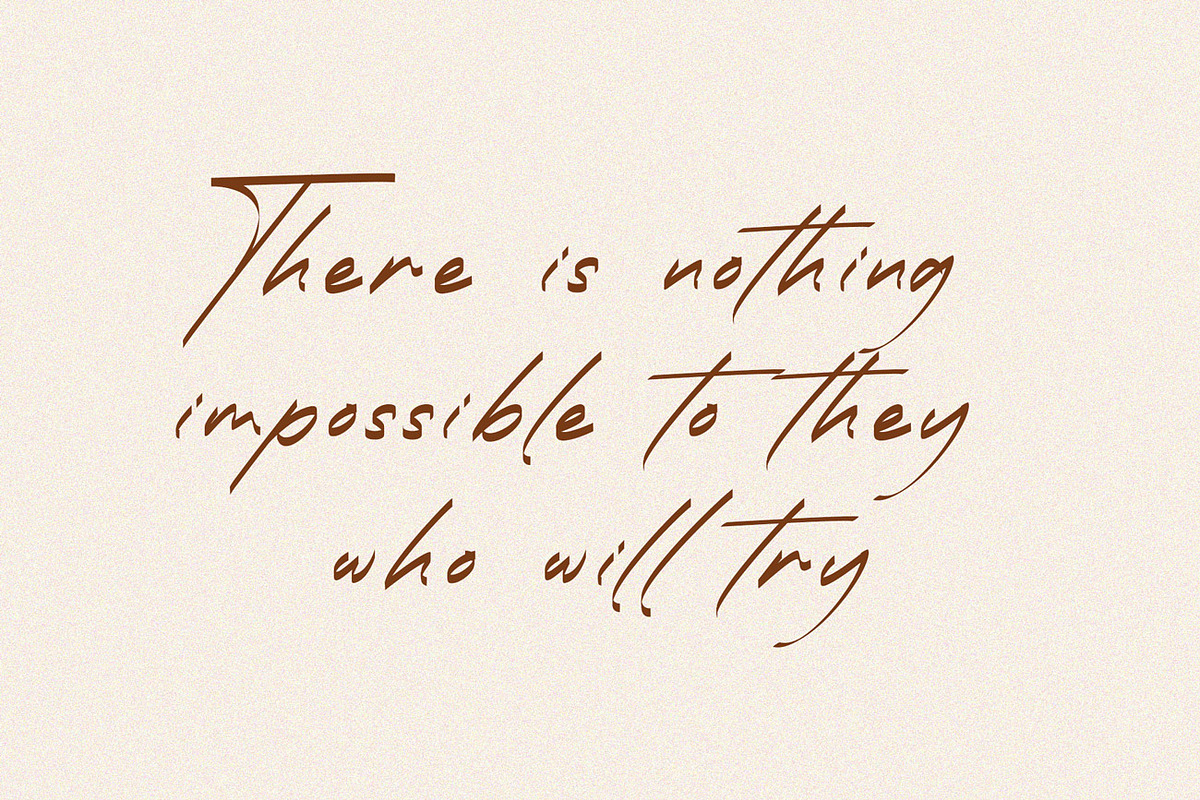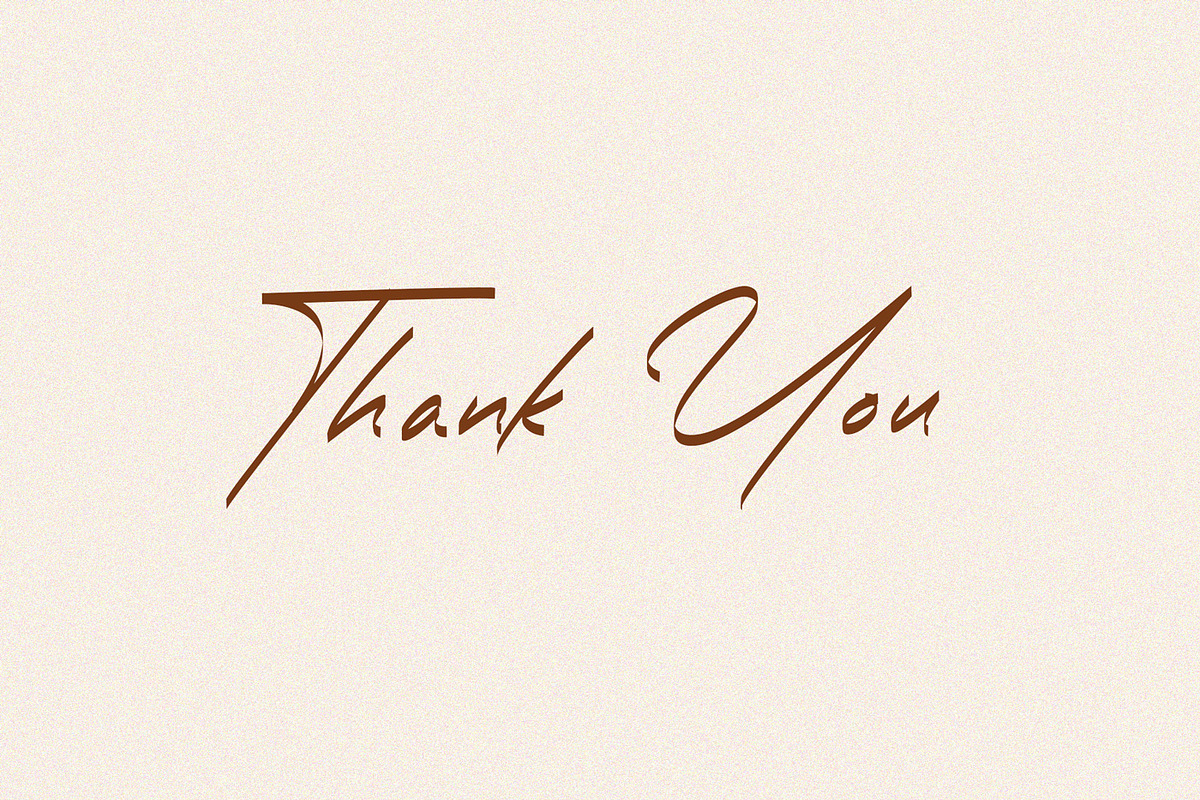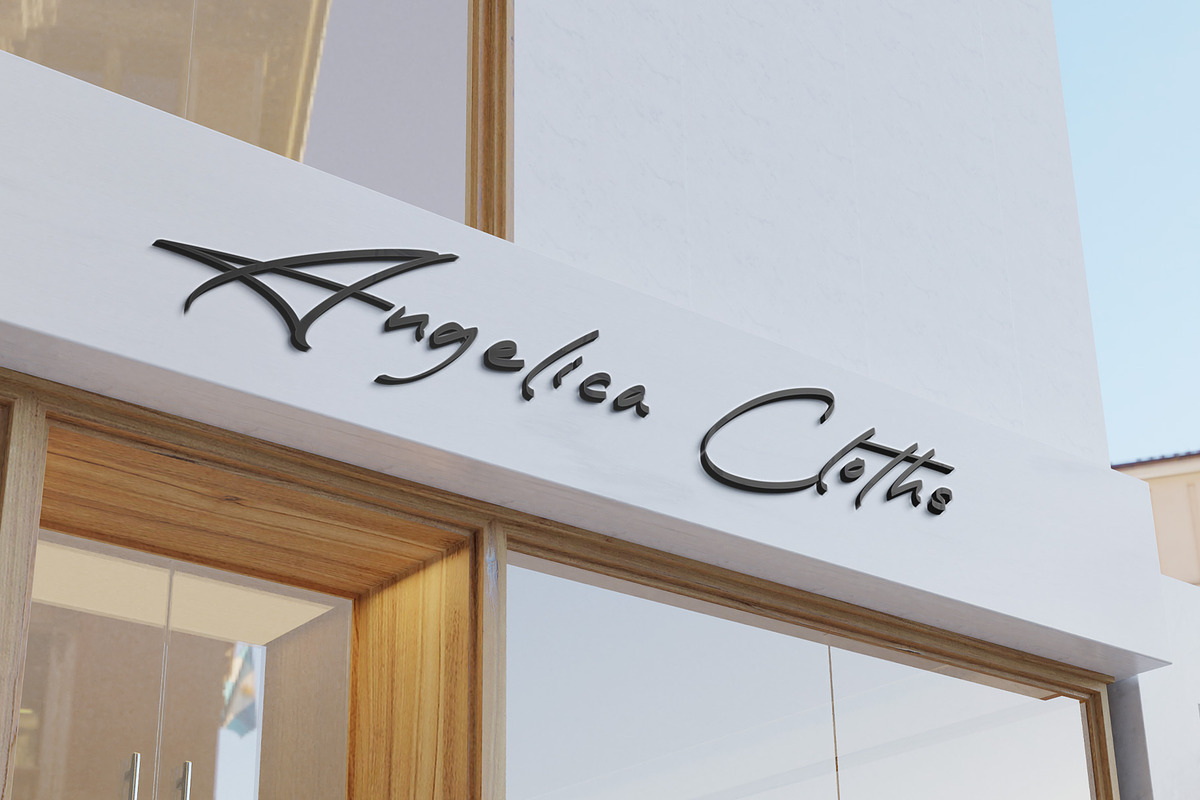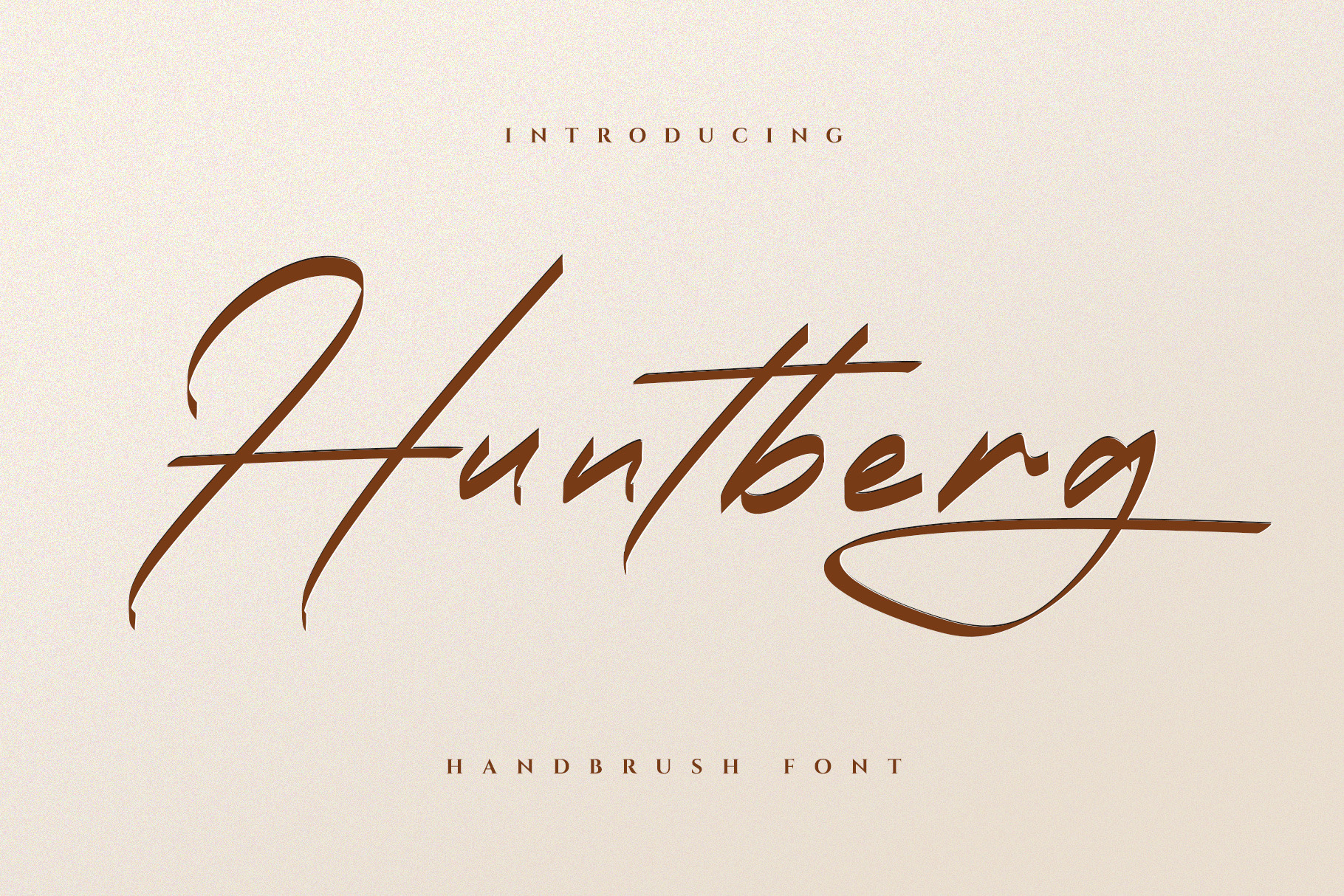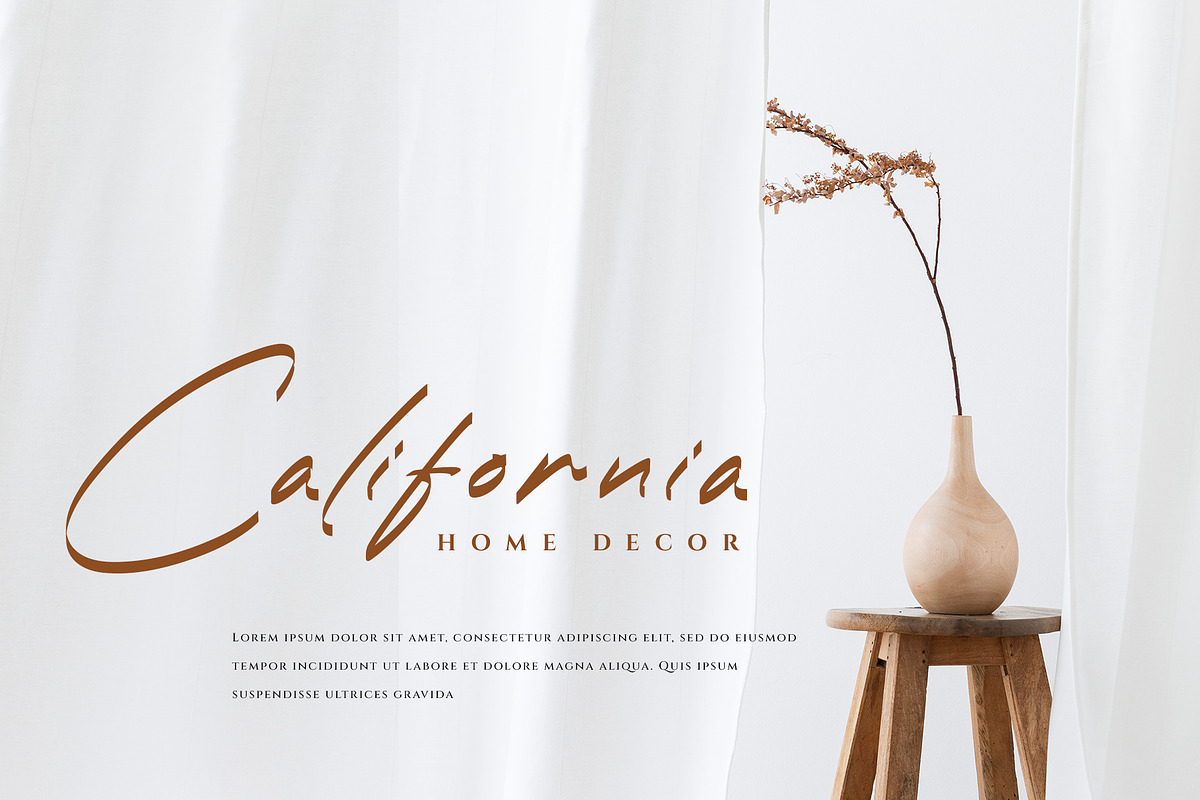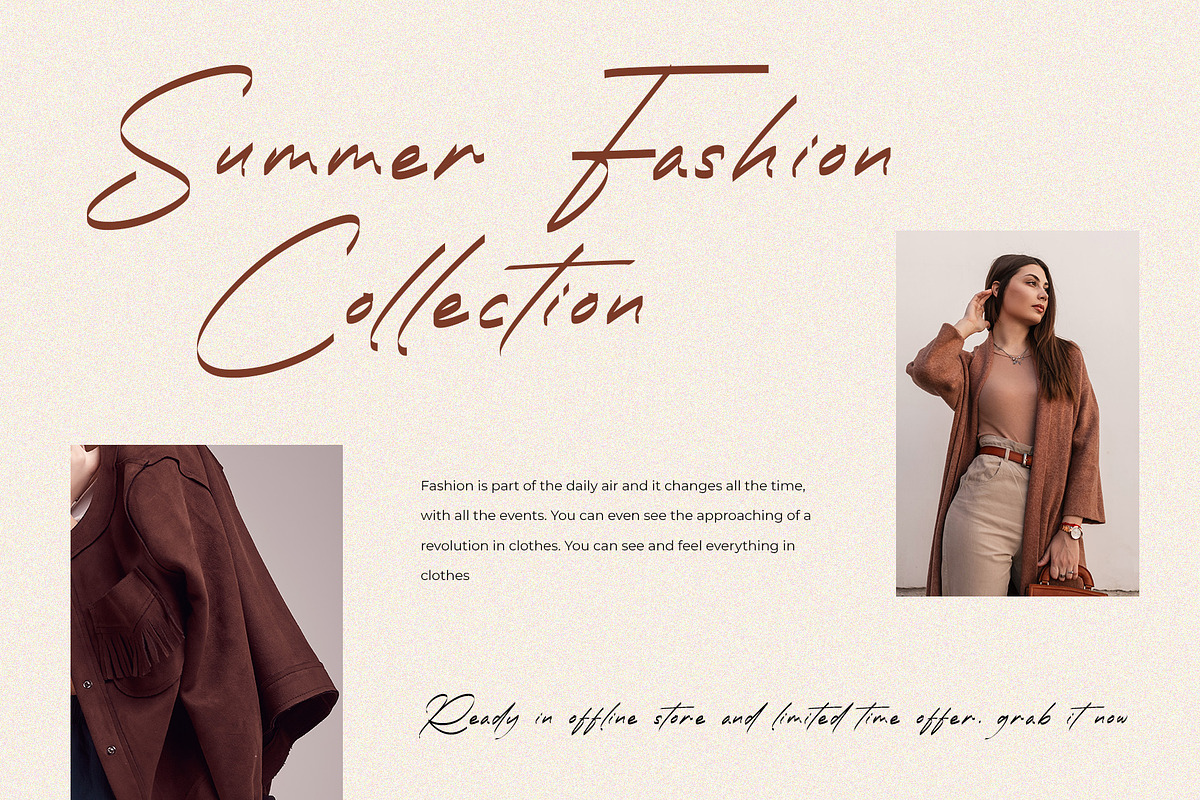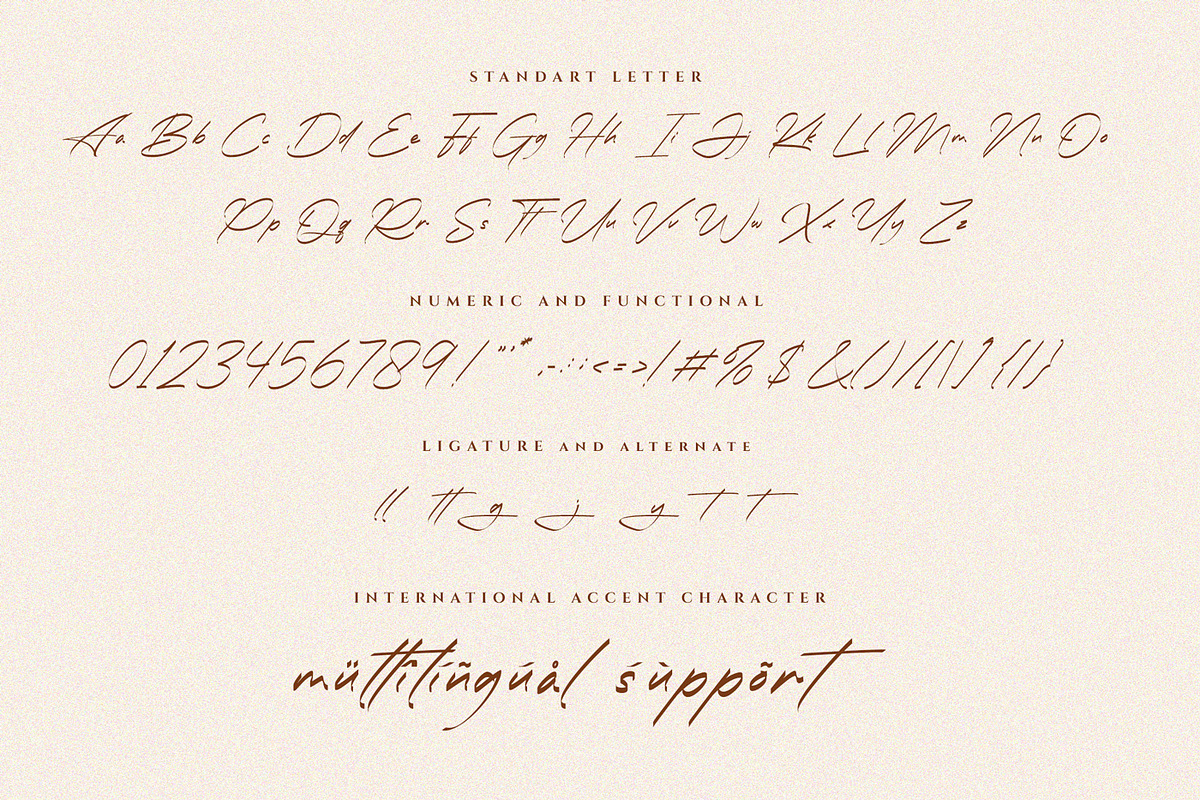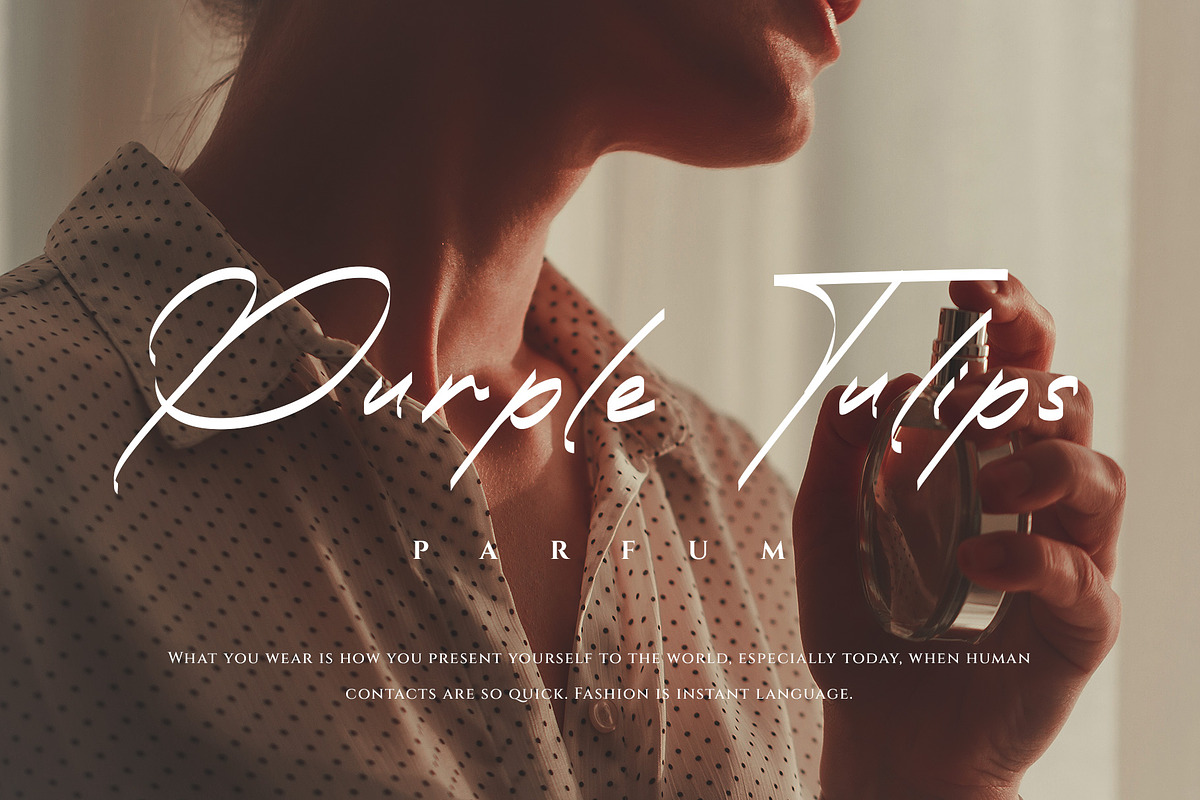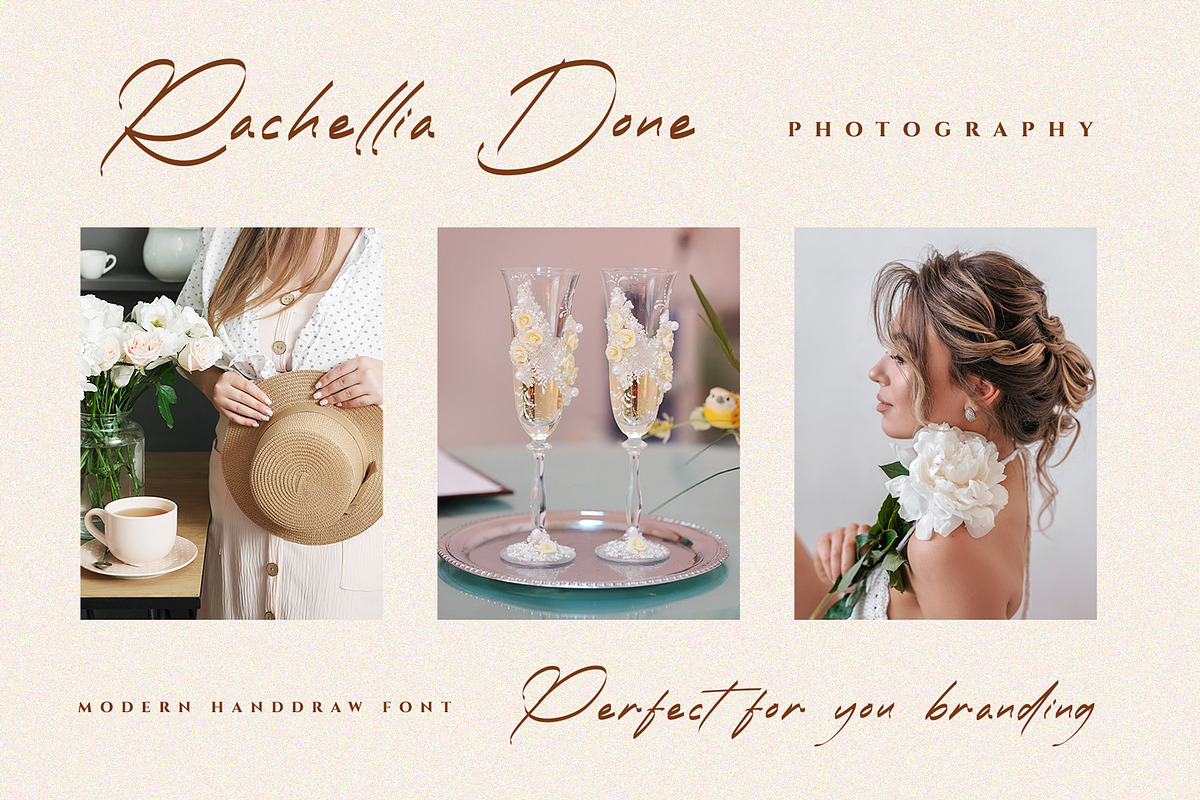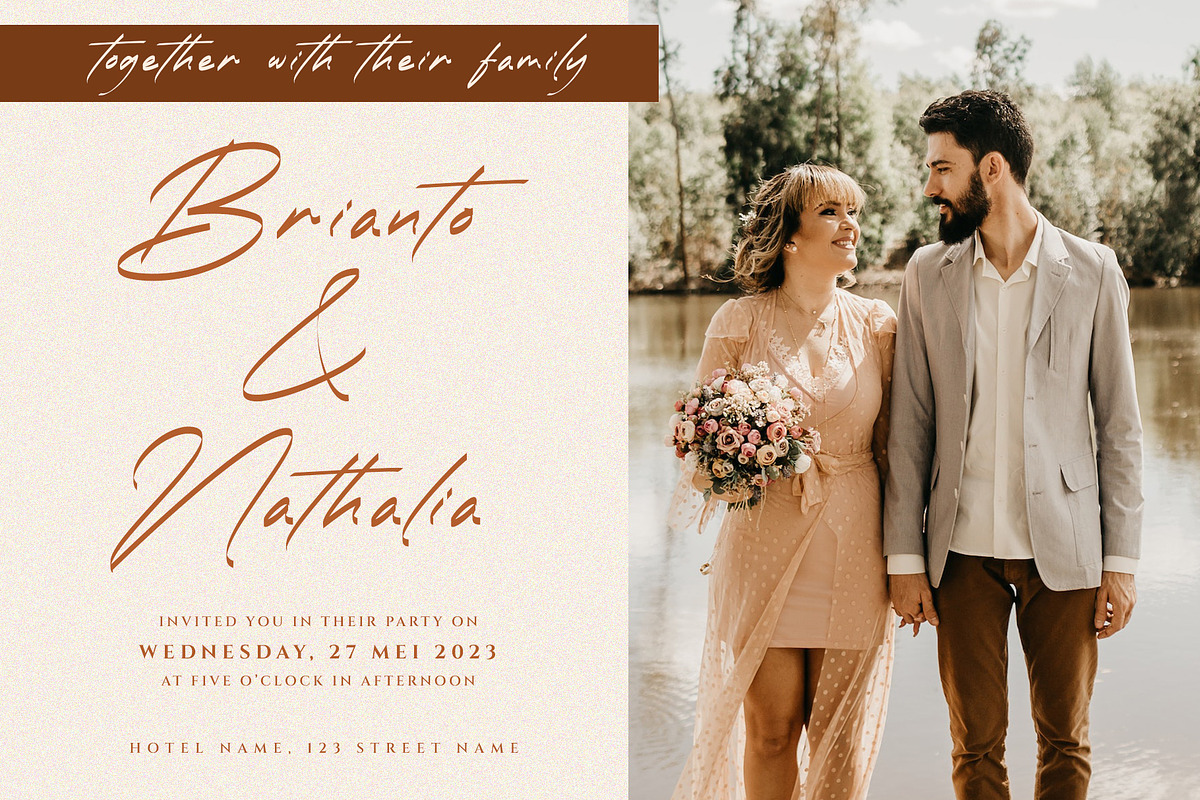
Huntberg Stylish Handdraw Font
Hi Ladies and Gentleman ! Proudly present stylish handwritten font “Huntberg” for you business.
Huntberg- modern handdraw style which can be interpreted professional. we keep this font looks elegant, luxury, premium, modern, readable, stylish, catchy and easy to use.
Huntberg- is the great choice for watermark on photography, branding, wedding event, signature or signature logo design, quotes, album cover, magazine, business card and many other design project. Huntberg here to make your work to high level!!!
- Standar character A-Z and a-z
- Multilinggual support